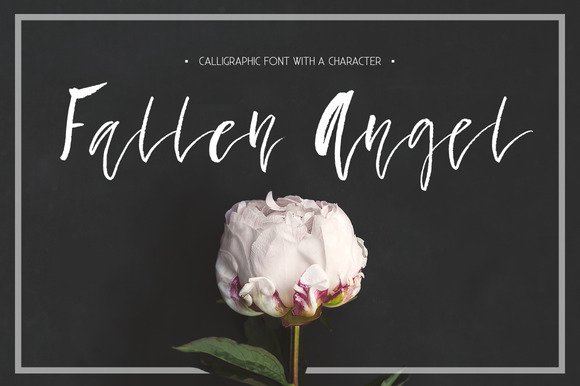
Discovering the Flair of Fallen Angel Font
Have you ever sat at your desk, staring blankly at a blank page, waiting for inspiration to strike? For designers, those moments can be the most exhilarating – and the most daunting. It’s in these moments that we search for the perfect font to bring our vision to life. And sometimes, that search leads us down a path of discovery, where we stumble upon a typeface that changes everything. Like the Fallen Angel Font, a modern calligraphic type that’s as bold as it is beautiful.
Designed to add a touch of sophistication and elegance to any design, the Fallen Angel Font is more than just a pretty face. Its unique baseline and strong personality make it a valuable asset for designers looking to add a little extra oomph to their work. Whether you’re working on a branding project or a wedding invitation, this font is sure to make a statement.
Fallen Angel Font Key Features
- Font Type: Script, Calligraphy
- Language Support: Supports Latin-based languages, including English, Spanish, French, and many more
- Unique Characteristics: Elegant, cursive script with intricate details and flourishes, ideal for creative and artistic designs
Review of Fallen Angel Font
Overall, I think Fallen Angel Font is a unique and captivating choice for any design project. ✨ It’s perfect for adding a touch of elegance and sophistication to your work. The font’s intricate details and Gothic-inspired design make it perfect for creating a dramatic and mysterious atmosphere.
Here are some of the things that I think work well in Fallen Angel Font:
- ✨ Its dramatic and elegant design makes it perfect for creating a luxurious feel.
- ✨ The font’s intricate details and Gothic-inspired design make it perfect for adding a touch of mystery and drama.
- ✨ It’s a great choice for creating a sense of movement and energy, thanks to its flowing lines and curves.
- ⚠️ The font may be difficult to read at small font sizes, especially in text-heavy content.
- ⚠️ It may not be the best choice for content that requires a lot of emphasis or highlight, as the font’s elegance can make it difficult to stand out.
- ⚠️ It may require some adjustment to get used to, as the font’s unique design can be quite striking.
Overall, I think Fallen Angel Font is a great choice for designers who want to add a touch of elegance and sophistication to their work. While it may have some limitations, it’s a unique and captivating font that’s sure to make a statement.
Tip: Use Fallen Angel Font for titles and headings to add a touch of elegance and sophistication to your design.
Tip: Experiment with different font sizes and styles to create a dramatic effect with Fallen Angel Font.
Tip: Use Fallen Angel Font for titles and headings to add a touch of sophistication to your presentations and documents.
Fallen Angel Font is perfect for:
- Book covers and novel titles
- Marketing materials and branding
- Artistic and creative projects
Alternatives to Fallen Angel Font
Playfair Display is a luxurious and elegant script font. It is ideal for use in high-end branding, invitations, and luxury packaging. This font has a similar sense of sophistication as Fallen Angel Font but with a more refined and classic feel.
Great Vibes is a beautiful, handwritten font with a touch of whimsy. It is perfect for use in creative projects, such as book covers, posters, and advertising materials. Great Vibes has a more relaxed and casual feel compared to Fallen Angel Font, making it suitable for a wider range of applications.
Carolyna Pro is a modern, elegant script font with a touch of sophistication. It is ideal for use in high-end branding, advertising, and editorial design. Carolyna Pro has a similar sense of luxury as Fallen Angel Font but with a more contemporary and modern feel.